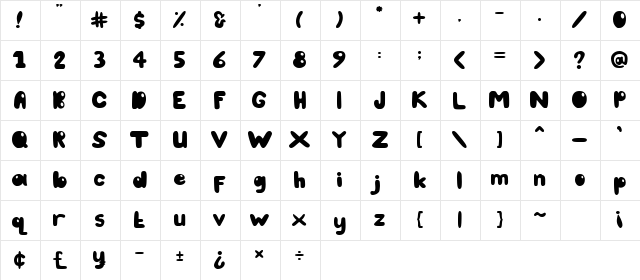
bubble cute bubble cute
Design Context for bubble cute Typeface
bubble cute trades formality for fun, with bouncy, characterful letterforms that bring warmth and energy to any project.
Font Pairing: Pairs well with a rounded or humanist sans for body copy, maintaining the friendly tone without relying on bubble cute to carry extended reading.
Pro Tip: Avoid using bubble cute for long passages of text — it works best for headlines, labels, and short calls to action.